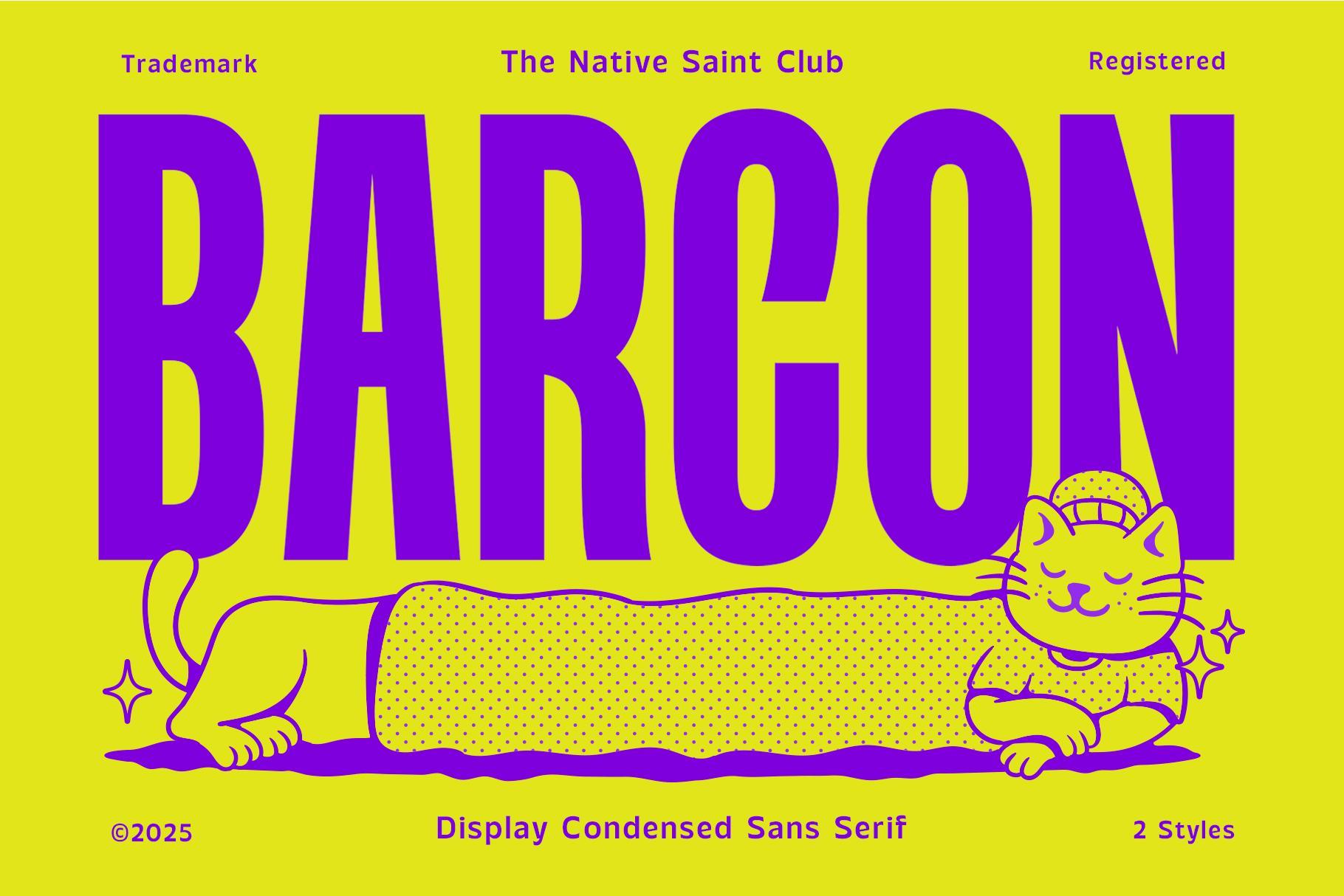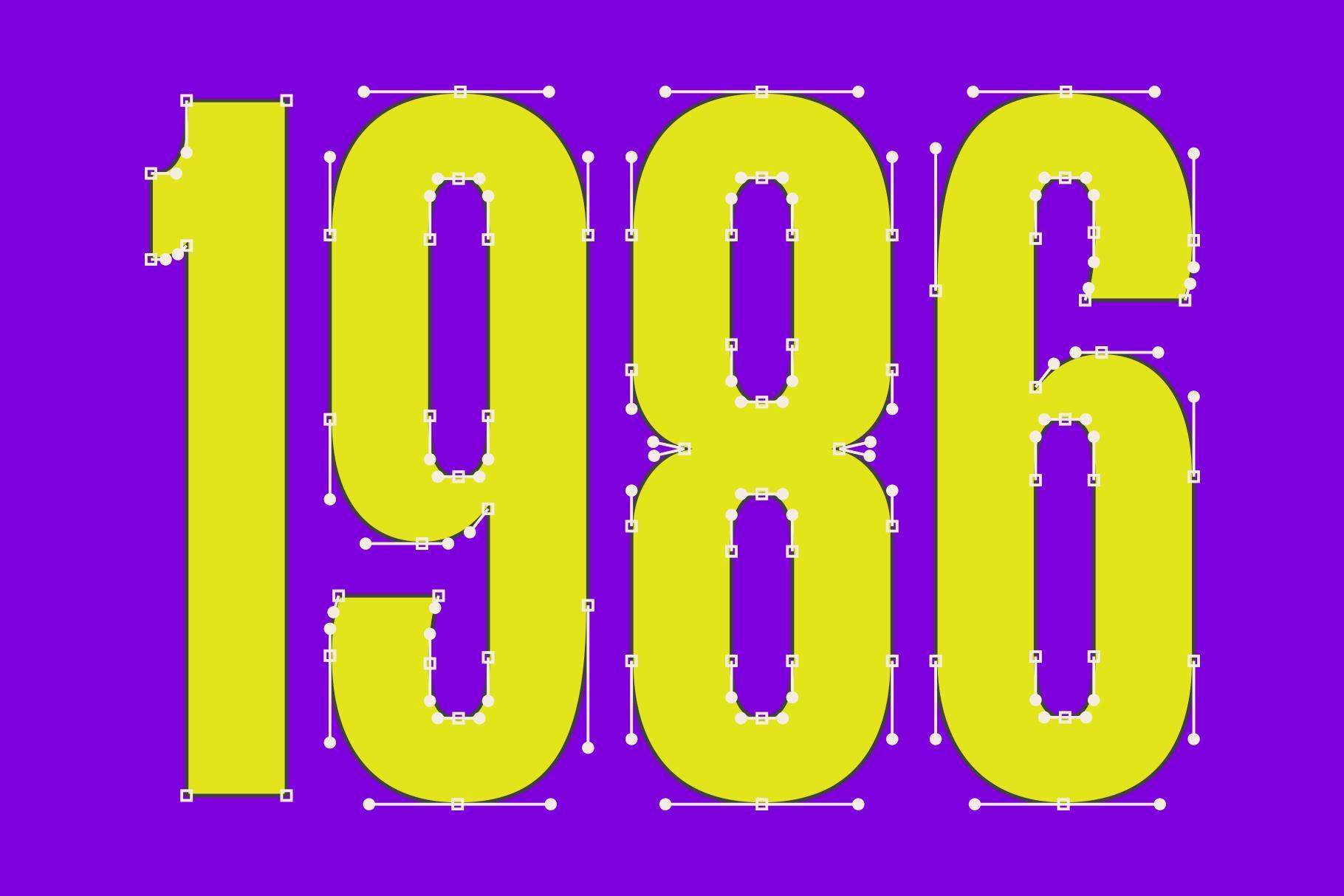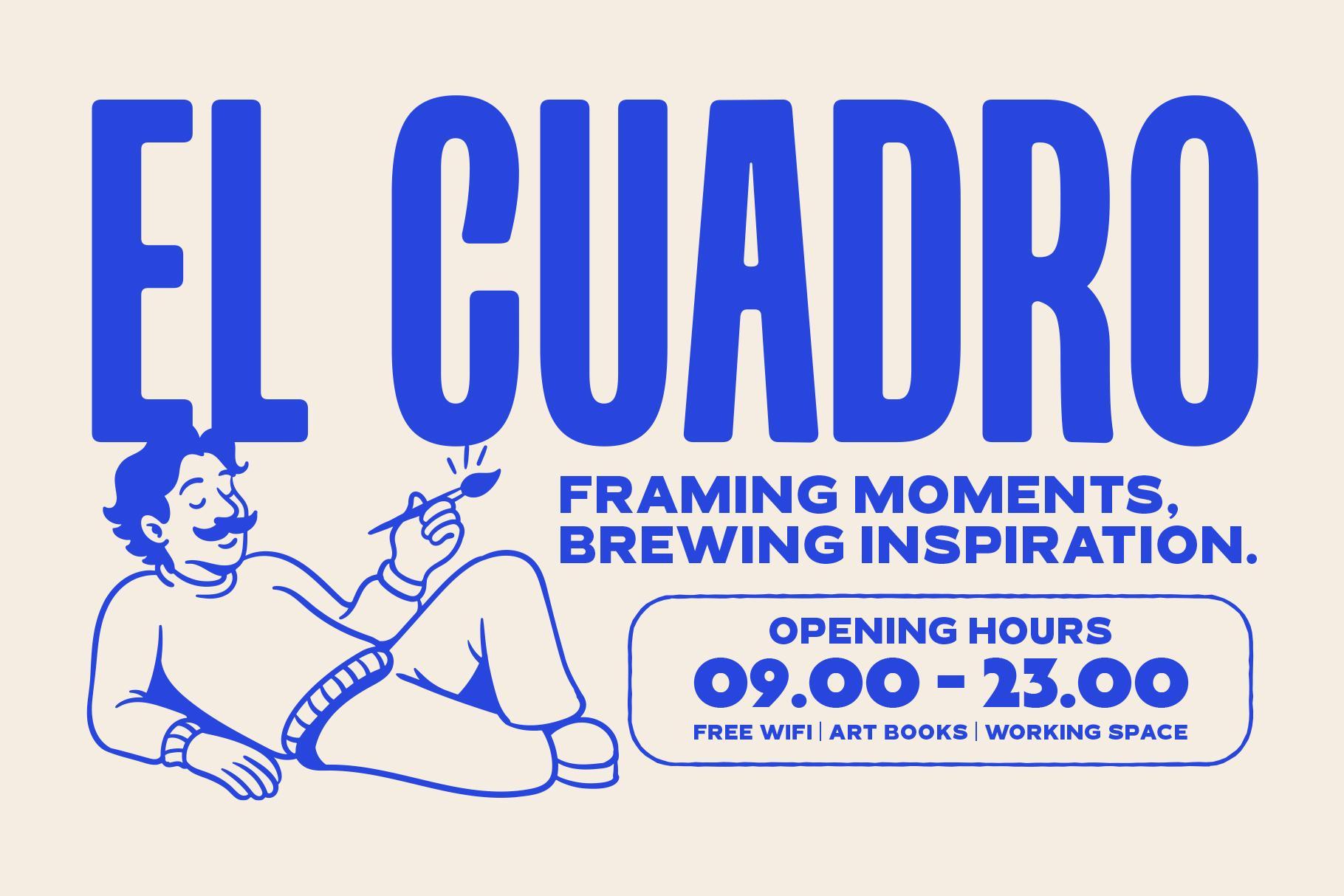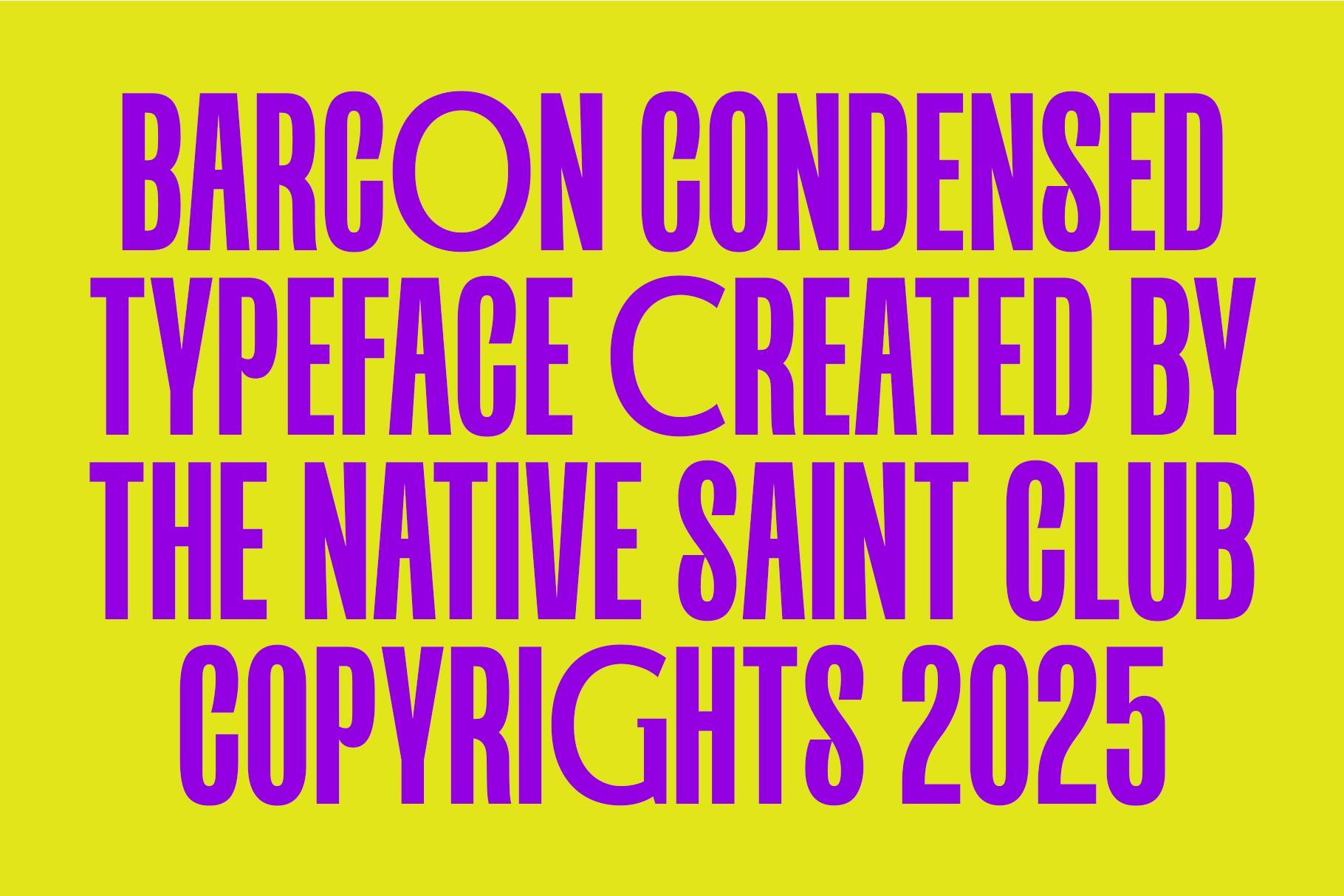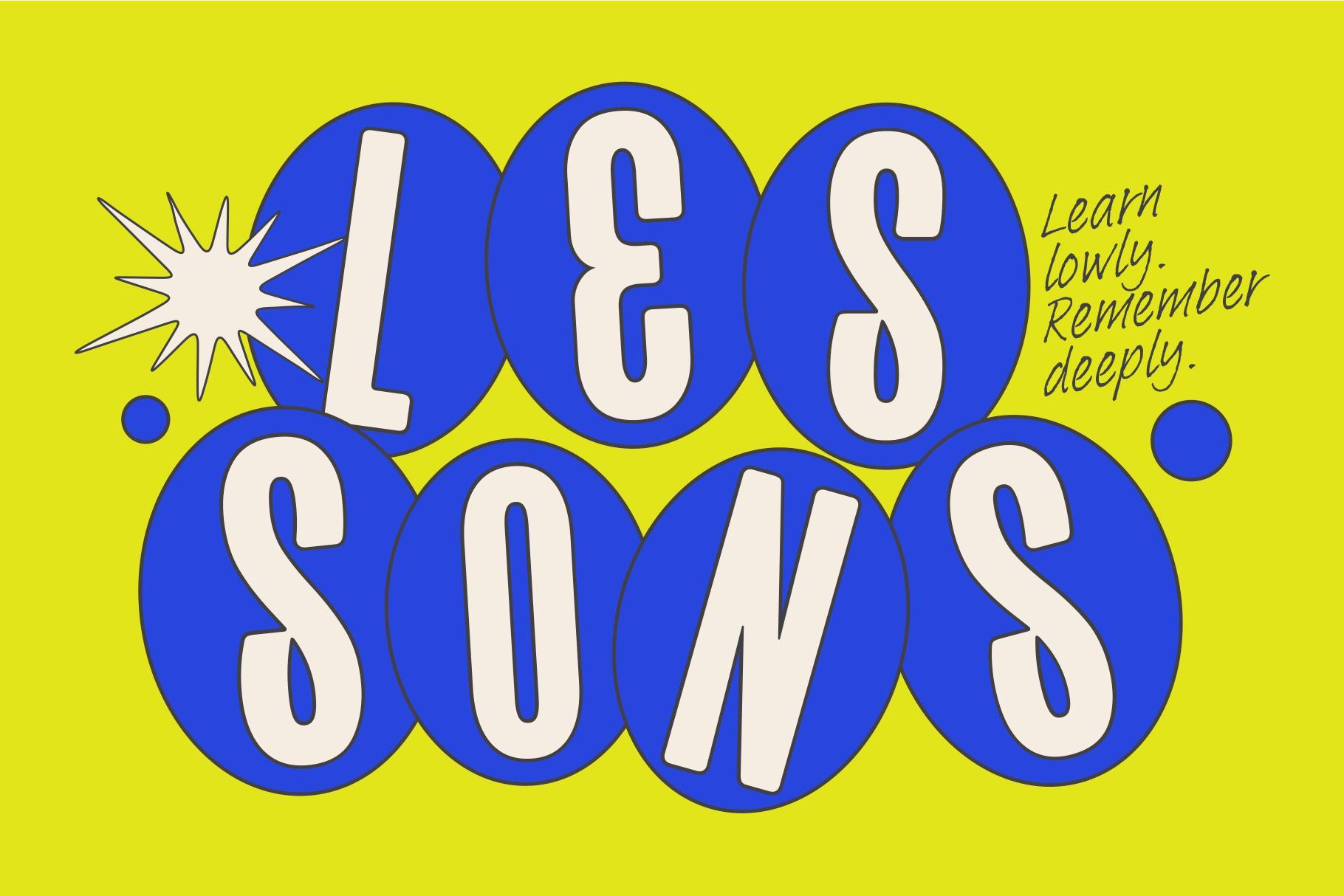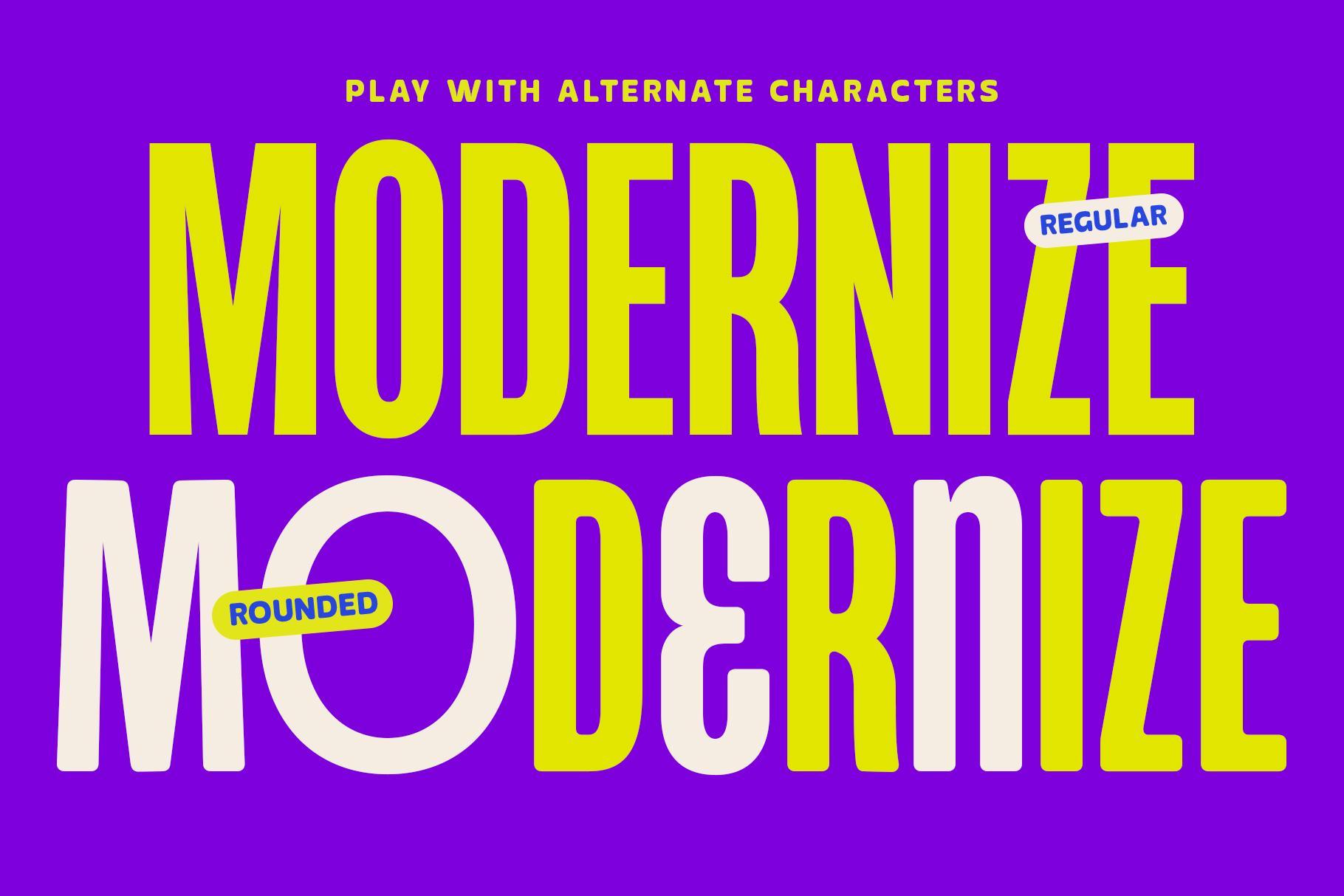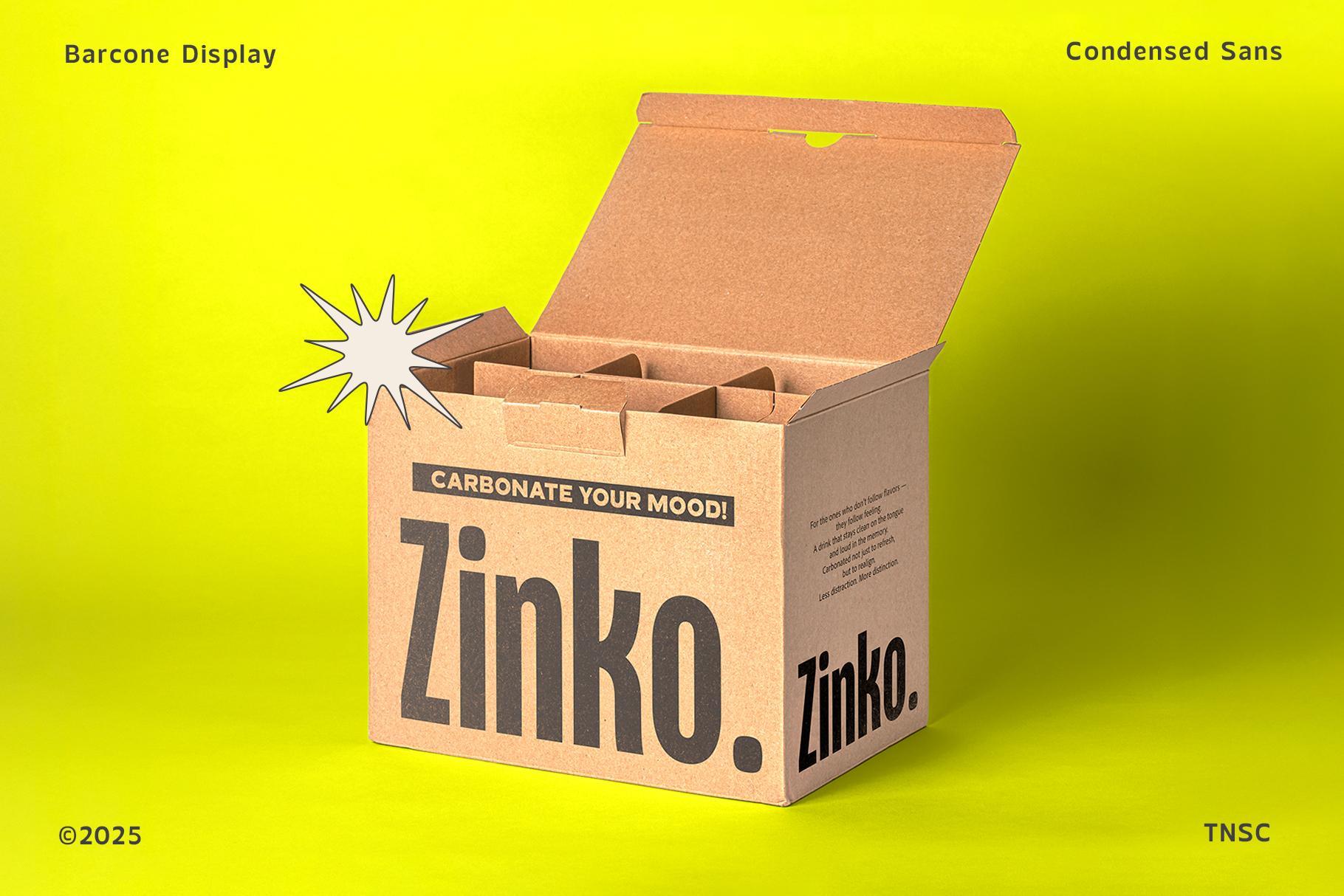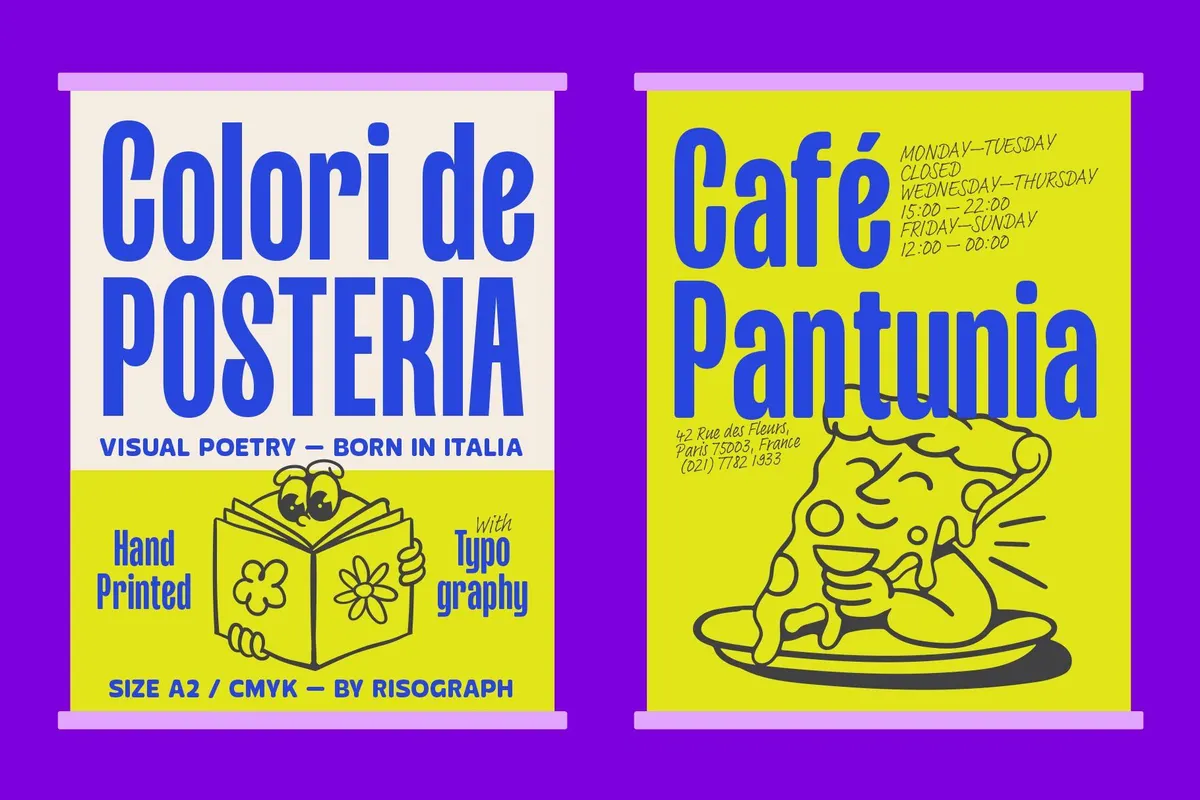
TNSC Barcon - Condensed Sans
A sharp and stylish condensed sans serif font, crafted with clean lines and a modern minimalist touch. Its narrow width makes it ideal for bold headlines, standout titles, and sleek, space-saving layouts. Available in two styles Regular and Rounded .